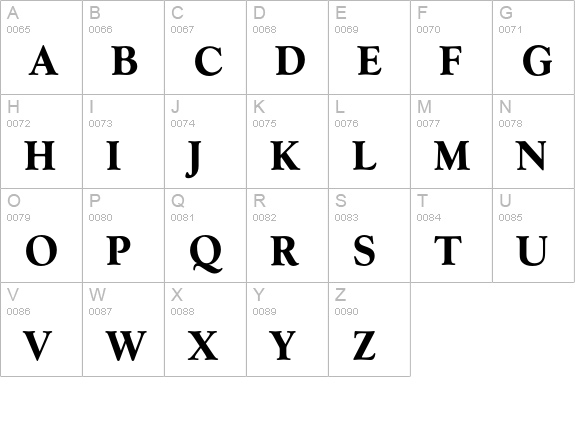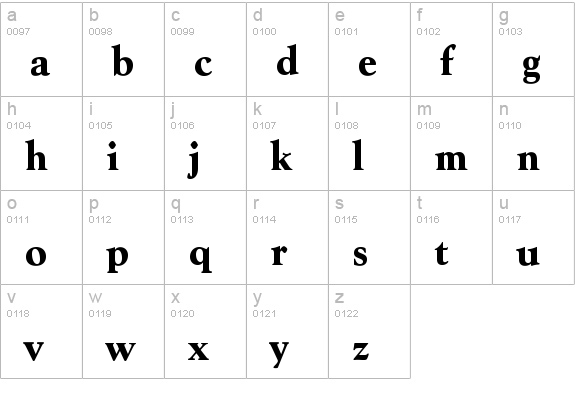
Goudx-Bold is a strong, high-contrast variant in the Goudx typeface family \xE2\x80\x94 well suited to headlines, attention-grabbing titles, and strong calls-to-action.
Introducing Goudx-Bold, a striking and modern font that demands attention with its bold and dynamic presence. This font exudes confidence and sophistication, making it perfect for headlines, logos, and branding projects. The sleek lines and sharp edges of Goudx-Bold give it a contemporary and edgy feel, while still maintaining a sense of elegance. What sets Goudx-Bold apart is not just its stunning design, but also the fact that it is completely free to download at FontsMarket.com. Yes, you read that right – this high-quality font can be yours at no cost, allowing you to elevate your designs without breaking the bank. Take advantage of this fantastic opportunity and add Goudx-Bold to your font collection today. Let your creativity shine with this exceptional and freely available typeface.